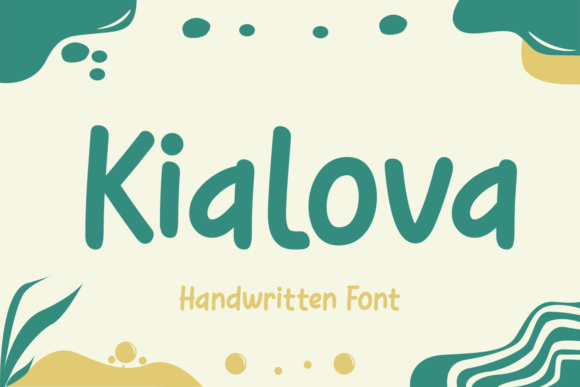
Unleash the allure of Kialova, a stunning script font that embodies elegance and sophistication. Each letter, meticulously handcrafted, dances across your designs, adding a touch of timeless charm and uniqueness. With its bold and confident strokes, Kialova commands attention, leaving a lasting impression on your audience.
Embark on a creative journey with Kialova, the ultimate font for minimalist designs. Its clean lines and understated beauty allow your messages to shine through, creating a captivating and refined aesthetic. Whether you're crafting eye-catching headlines, alluring logos, or personalized invitations, Kialova effortlessly elevates your designs with its timeless simplicity.
Immerse yourself in the world of Kialova and experience the power of nostalgia. This remarkable font evokes memories of classic handwritten letters, adding a touch of warmth and familiarity to your projects. Transport your audience to a bygone era, where handwritten notes conveyed heartfelt emotions and captured the essence of human connection.
Created by the talented KristopherRansz, Kialova is a testament to the art of typography, a font that speaks volumes with its graceful curves and striking presence. Embrace the versatility of Kialova and unlock endless creative possibilities. Let your imagination soar as you explore the limitless potential of this extraordinary script font.